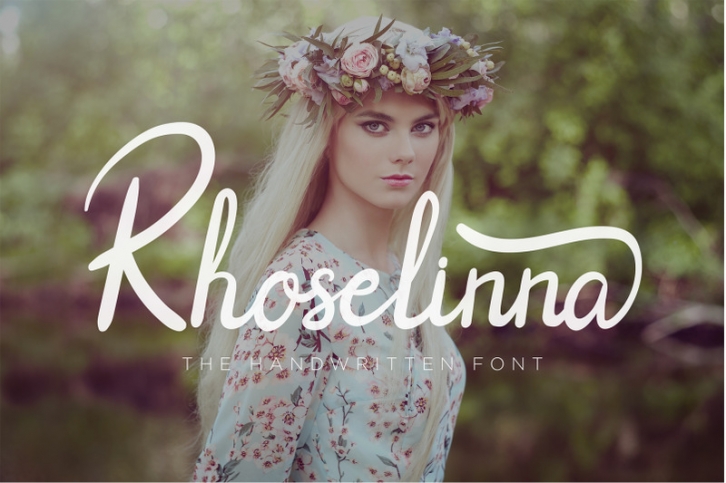
Rhoselinna Script FONT Download
Rhoselinna handwritten font will be suitable for logo’s, branding projects, homeware designs, product packaging, mugs, quotes, posters, shopping bags, t-shirts, book covers, name card, invitation cards, greeting cards, label, photography, watermark, special events, and all your other lovely projects that need handwriting taste.
- Upper Case & Lowercase
- Numerals
- Punctuations (OpenType Standard)
- Accents (Multilingual Characters)
- Ligatures & Alternative Style Stylistic Set